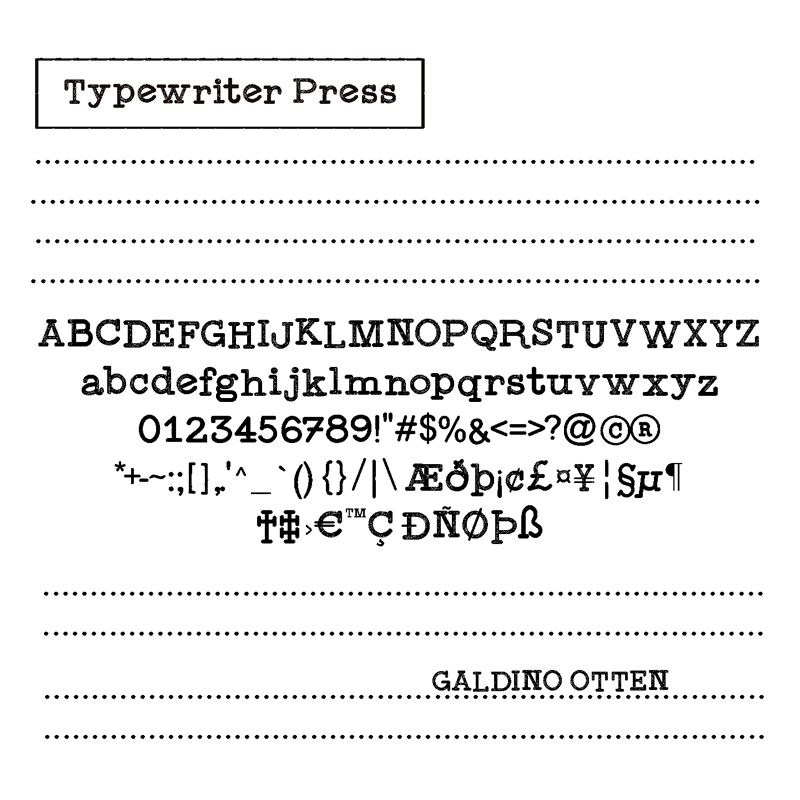
Typewriter Press
Typewriter Press, a captivating display font designed by Galdino Otten Fonts, adds an authentic touch to your projects. Its typewriter eroded style exudes a vintage charm that is perfect for retro-themed designs. The semi-light weight of this font enhances readability while maintaining a delicate balance between elegance and nostalgia.
Ideal for posters, book covers, and branding materials, Typewriter Press helps you create compelling content with an old-world aesthetic. Let your creativity flow as you transport viewers back in time with the timeless appeal of Typewriter Press.